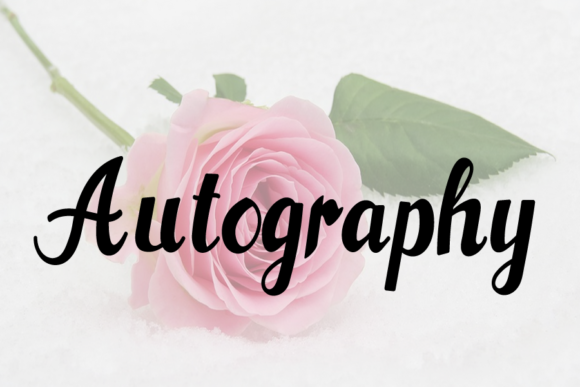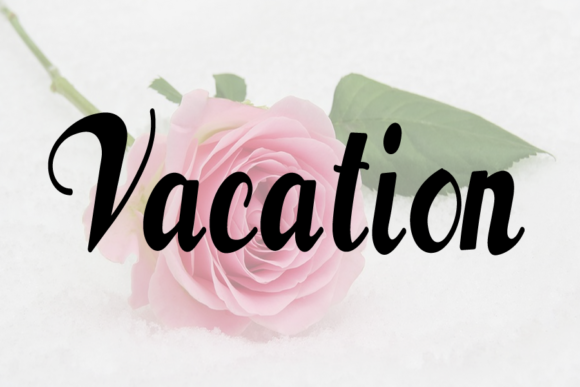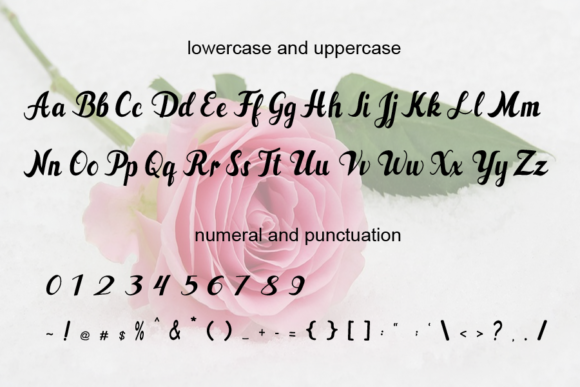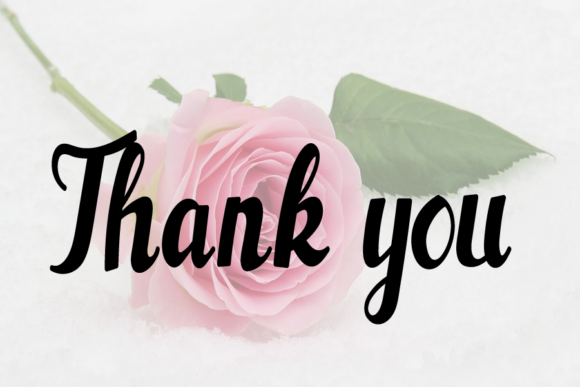
Introduction to Rafa Font
Rafa is a gorgeous handwritten script font with a classic calligraphy style.
The smooth characters work great on greeting cards, wedding invites, birthday cards, and much more Add this lovely font to your creations and take your designs to the next level.
Key Features of Rafa Font